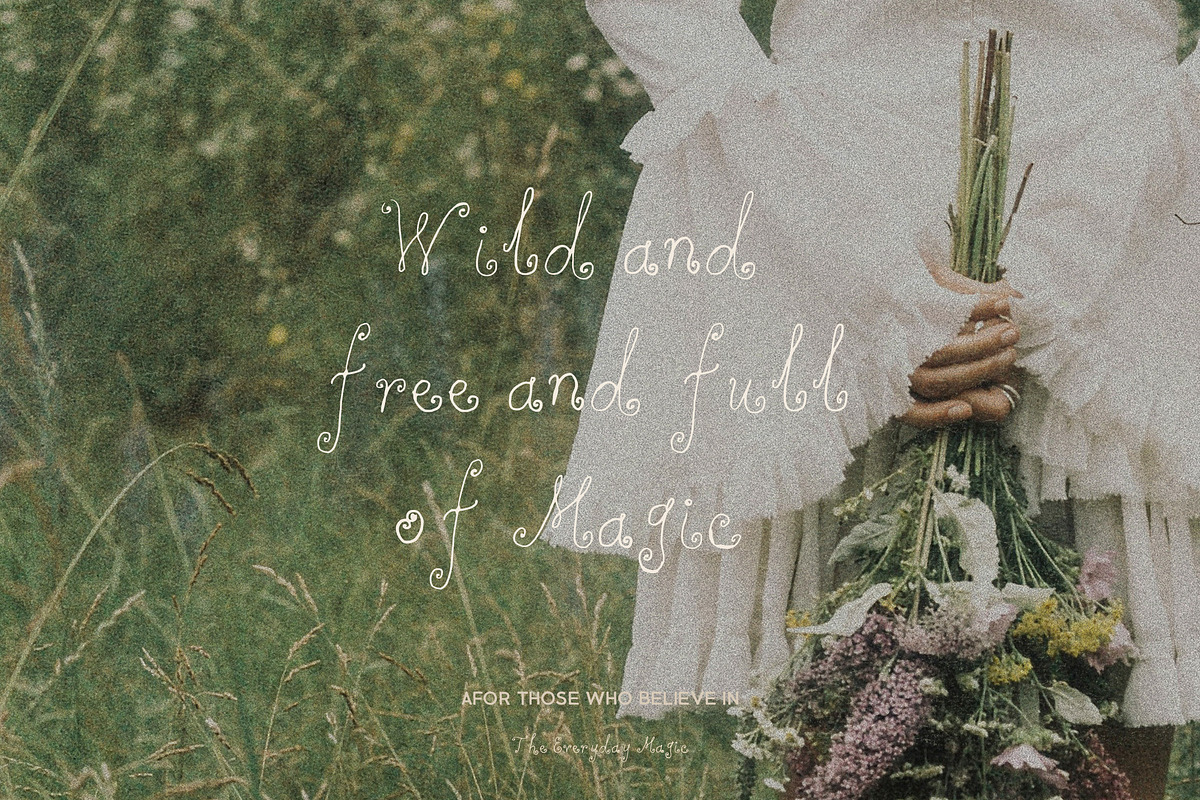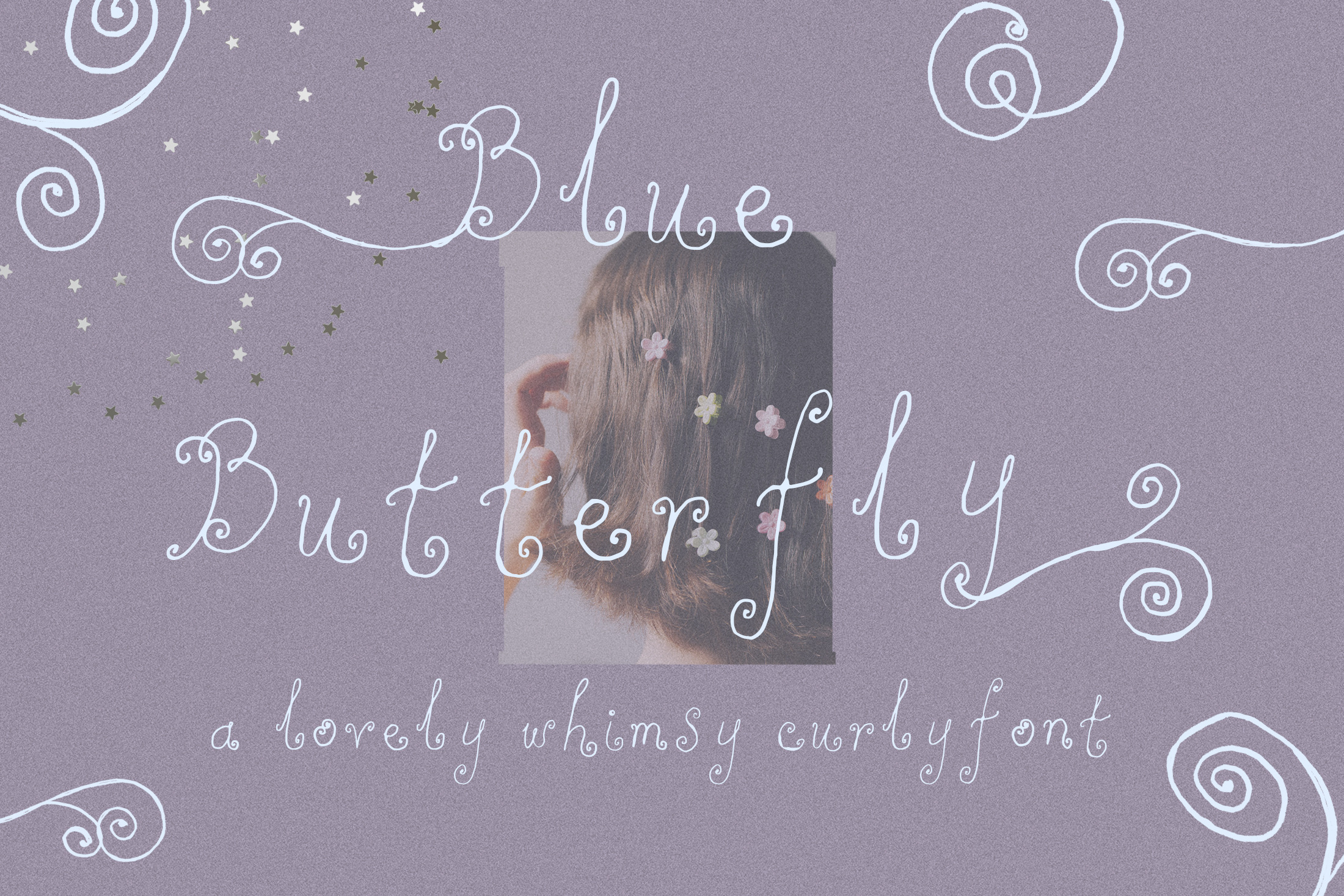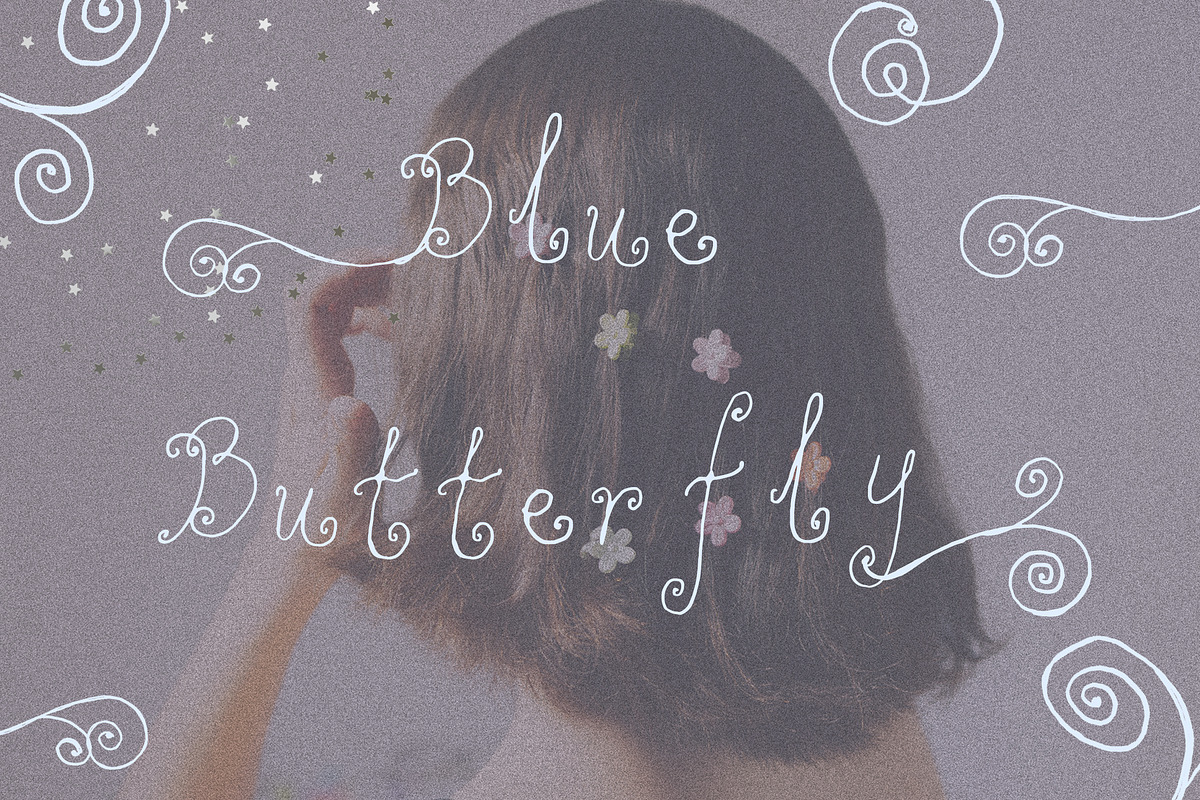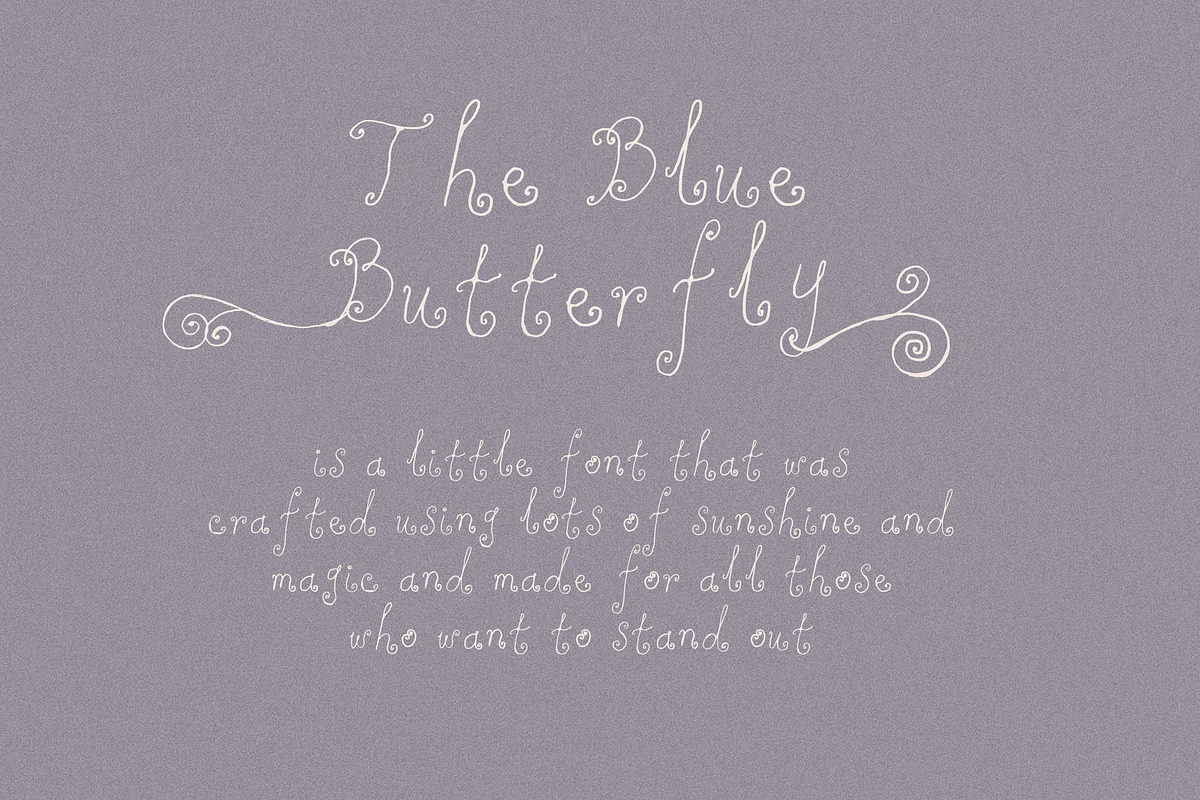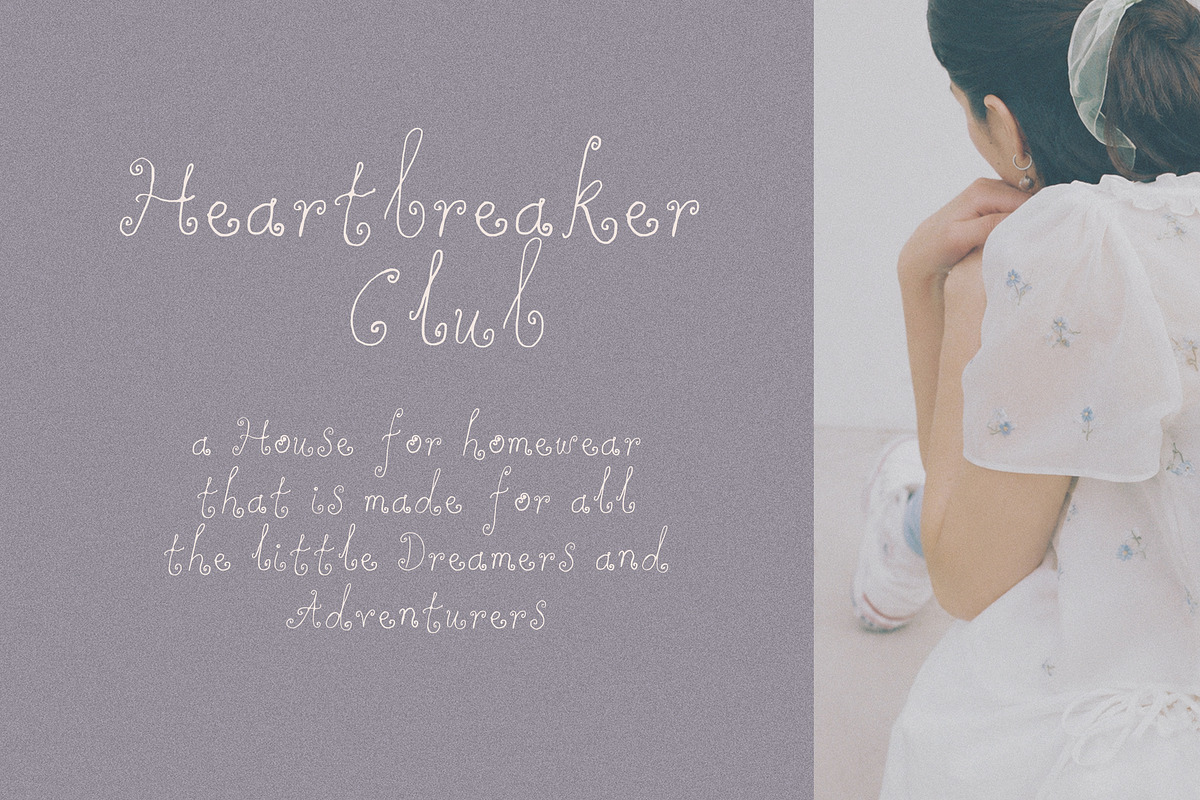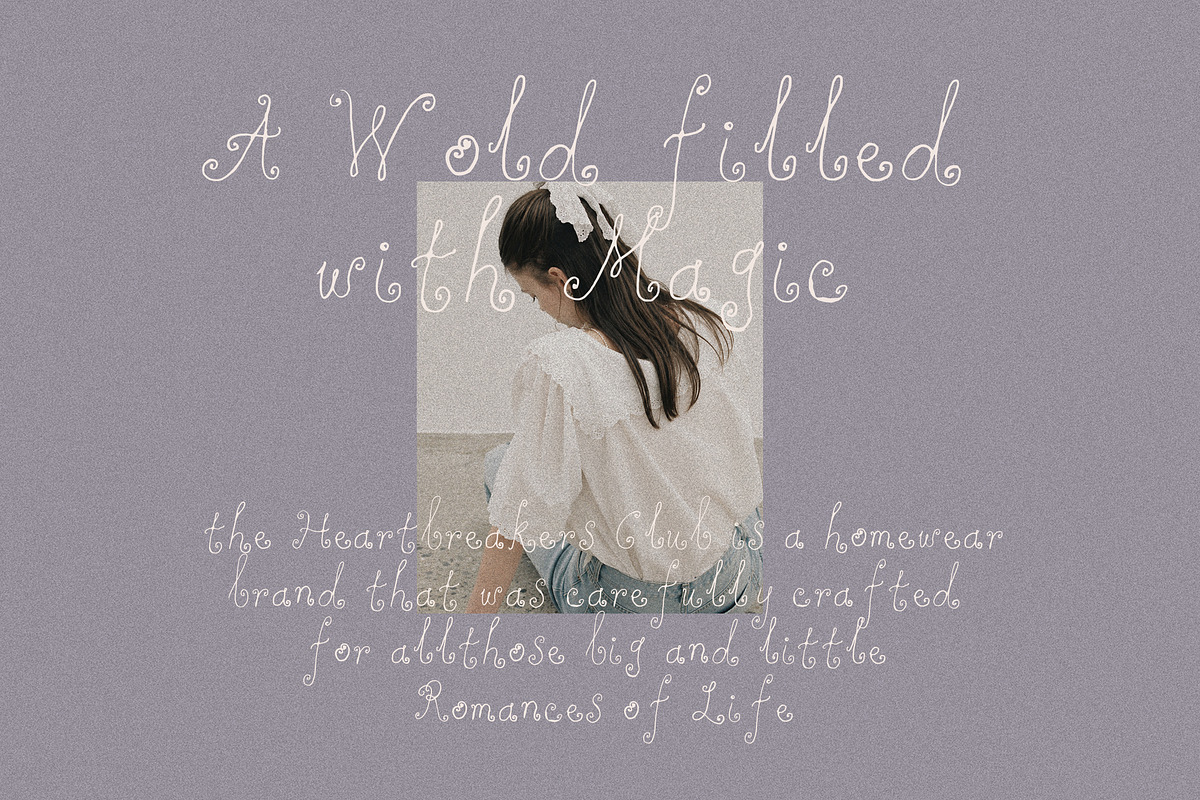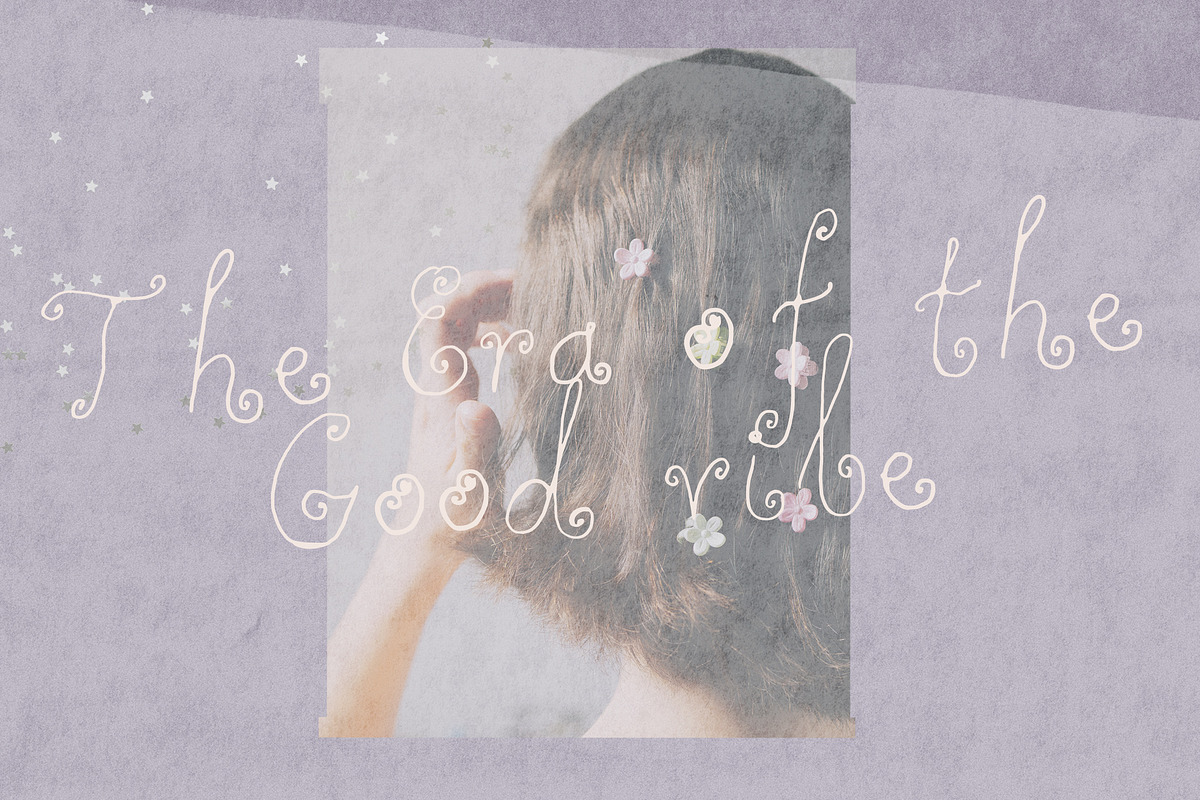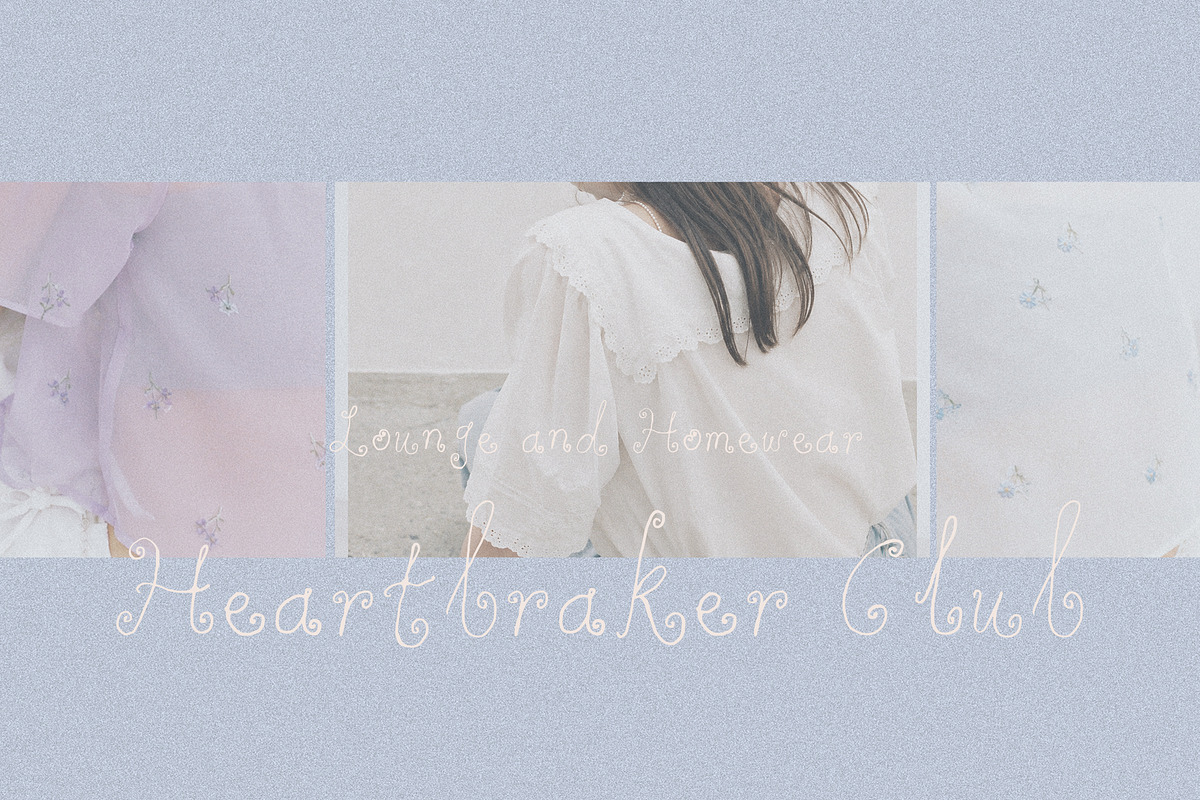
Handwritten Whimsy Curly Font
Blue Butterfly is a handwritten font that is dreamy, whimsy and has that cotton-candy cloud vibe that adds atmosphere to your designs. It comes with all those quirks and little details and also has a variety of alternates and swashes included that will make it just that bit more whimsy!
Add some magic to your projects with:
A lovely handwritten font that will add so much joy to your art :)